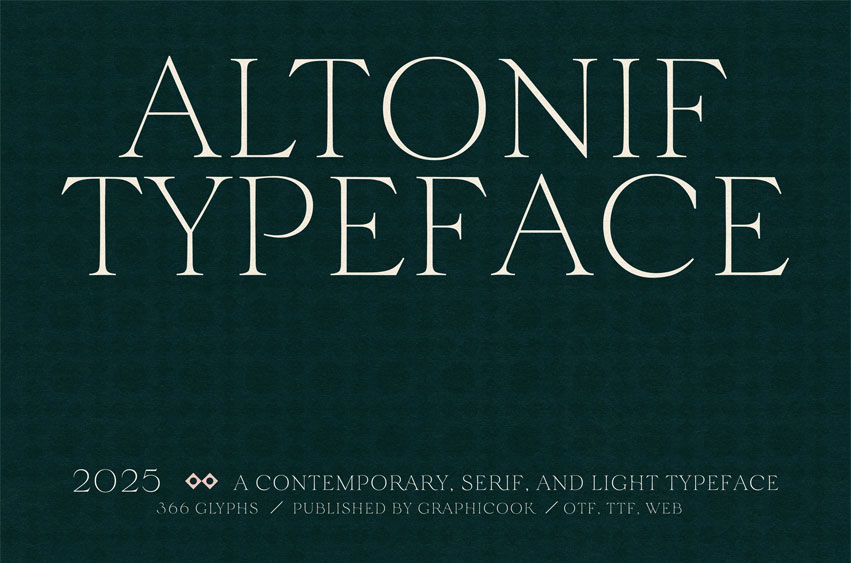
Altonif Font is a contemporary serif font with thin strokes and an elegant, modern personality. Its clean shapes and dynamic curves create a timeless, exclusive feel—perfect for logos, branding, invitations, and formal designs.
It is perfect for headlines, logotypes, magazines, packaging, quotes, movies, games, cover albums, book covers, and flyers. It’s a perfect solution for creating eye-catching designs that stand out in any context.